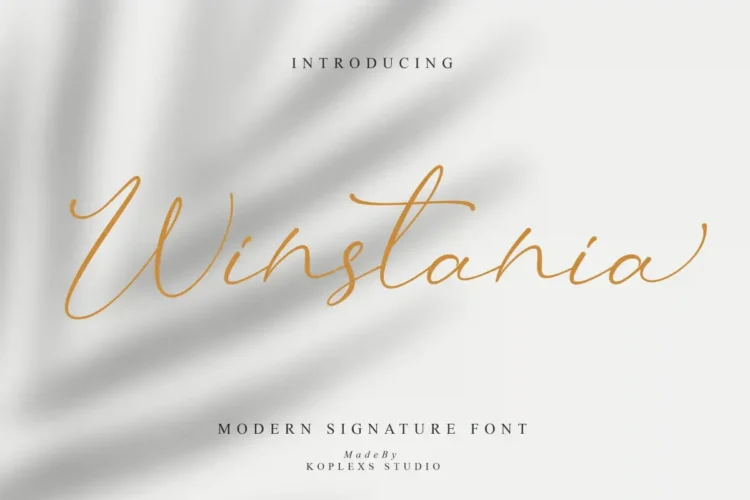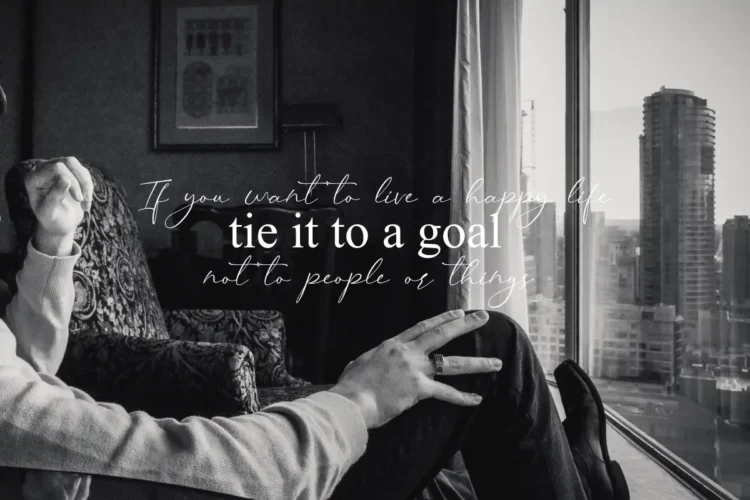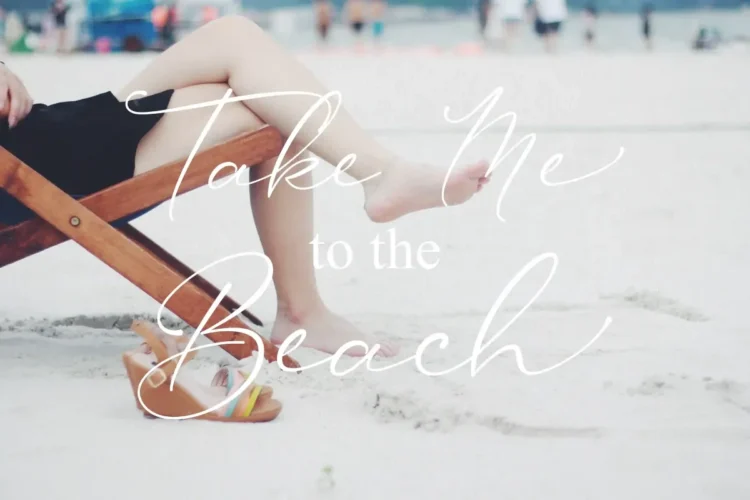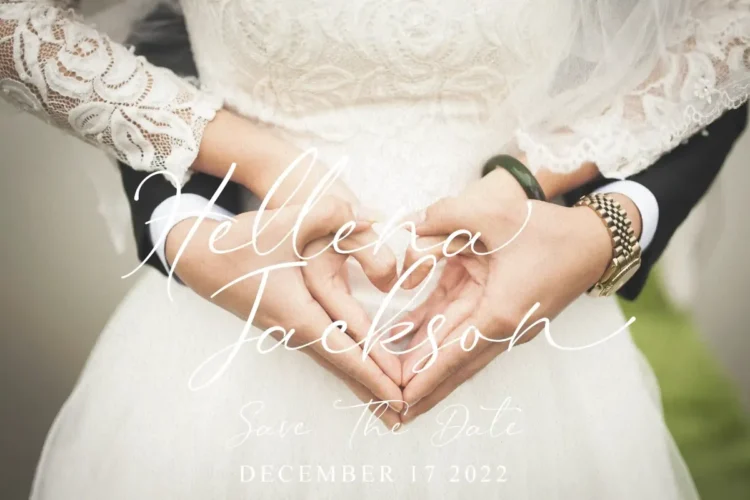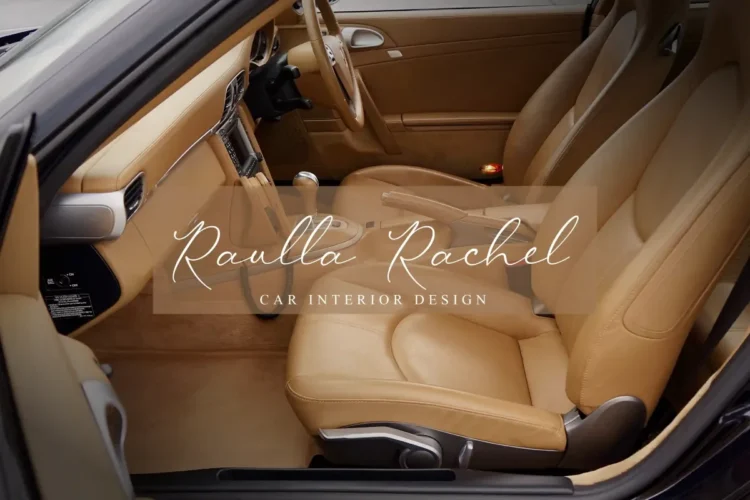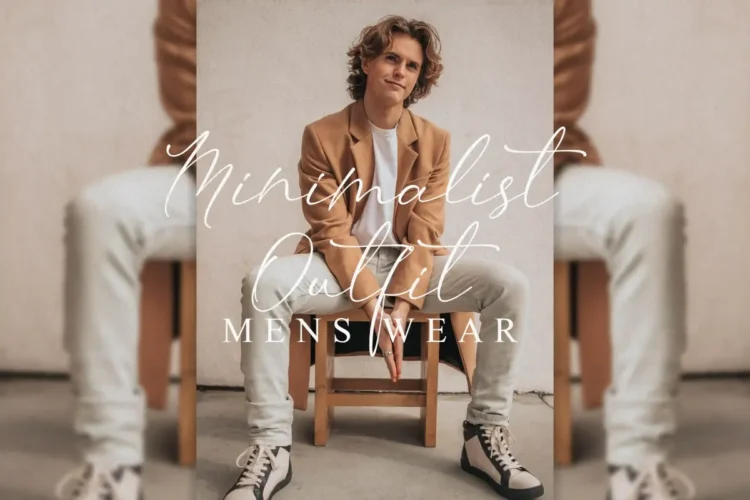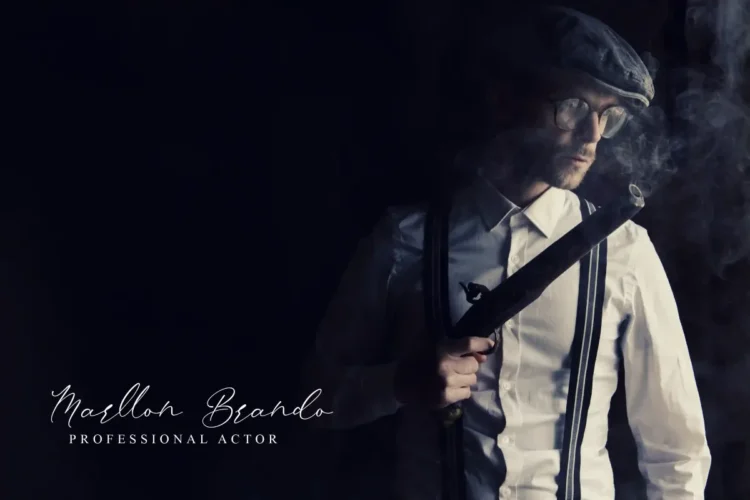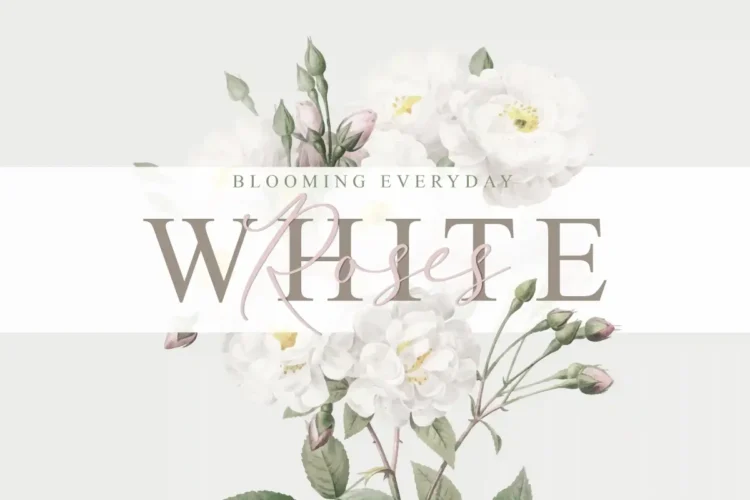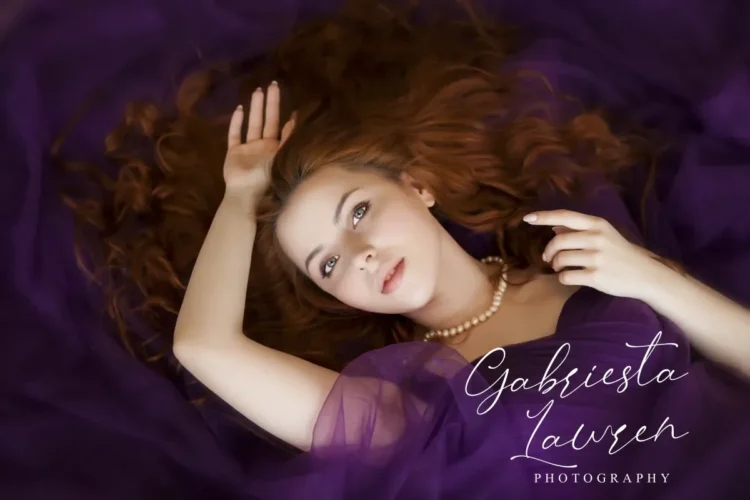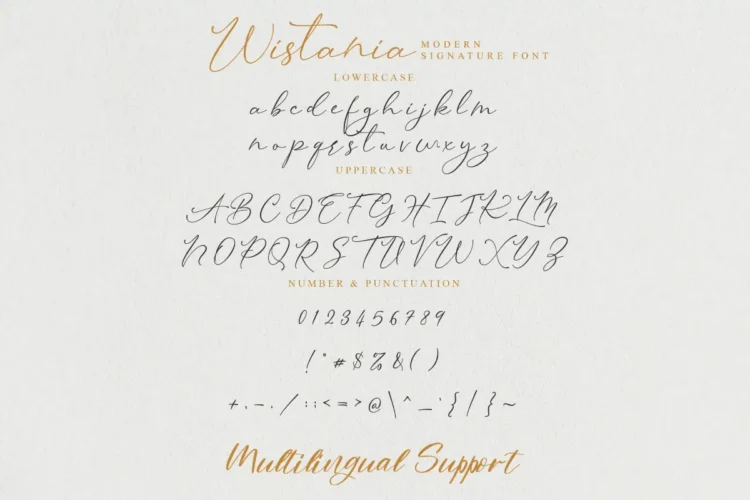
Wistania Font – Elegant Handwritten Script for Wedding, Branding & Luxury Design
Wistania Font is a modern signature font that blends timeless beauty with contemporary flair. Designed as a handwritten font with delicate strokes and natural flow, it exudes warmth, sophistication, and authenticity. Its calligraphy font style makes it the perfect choice for those who want to bring a personal yet professional touch to their projects.
Whether you’re searching for a wedding font that captures romance, a branding font that elevates your business identity, or a logo font that stands out with class, Wistania Font is the answer. As one of the most elegant fonts available, it creates a luxury font feel while maintaining readability. With its soft curves and artistic balance, it also embodies the essence of an aesthetic font for modern creative needs.
Wistania Font Perfect for :
- Wedding invitations & stationery
- Personal signatures & photography watermarks
- Fashion & lifestyle branding
- Business cards & logos
- Elegant packaging & product design
- Social media graphics & inspirational quotes
- Luxury-themed projects
Features:
- Stylish script font with fluid, handwritten strokes.
- Works beautifully as a wedding font, invitation font, and save-the-date design.
- Versatile as a branding font for logos, packaging, and personal branding.
- Functions as a calligraphy font for quotes, social media posts, and stationery.
- One of the most modern fonts for both digital and print projects.
- Perfect logo font for businesses, blogs, or lifestyle brands.
- An elegant font that adds sophistication and charm to any design.
- A luxury font that enhances high-end branding and premium aesthetics.
- Also an aesthetic font ideal for moodboards, posters, and creative projects.
Bring your designs to life with Wistania Font – where handwritten elegance meets modern style.